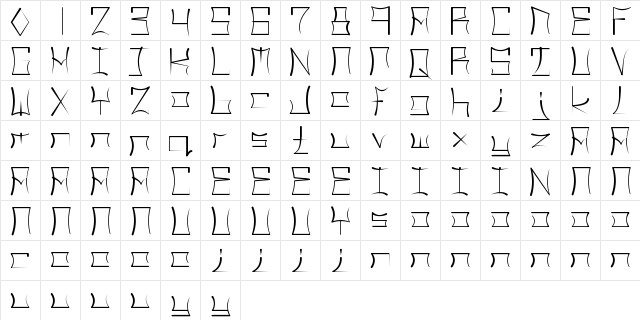
Glyphic Regular
| Foundry | water and sunshine |
| Designer | Donald Hunt |
Design Context for Glyphic Typeface
Glyphic is a composed and adaptable typeface that performs quietly and consistently across a wide range of design contexts.